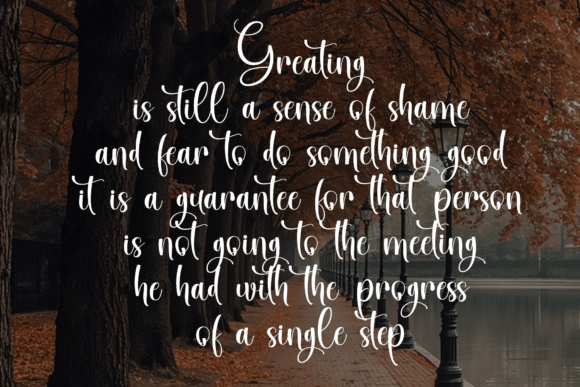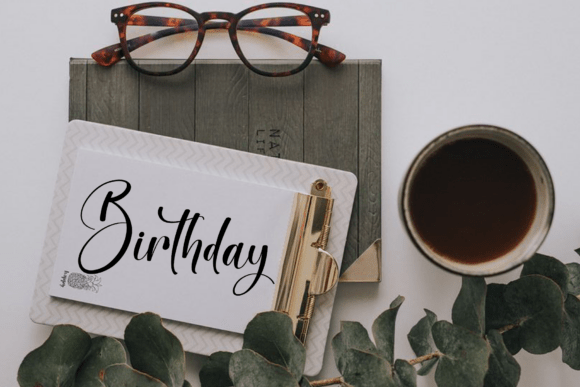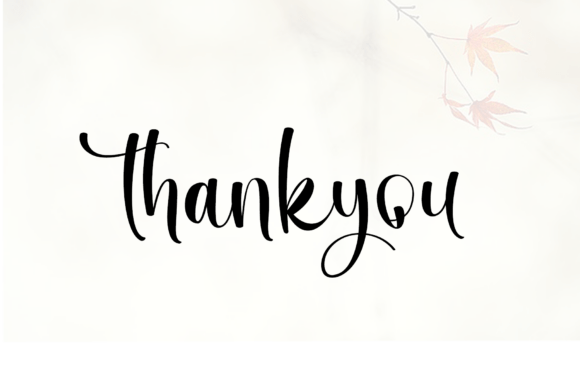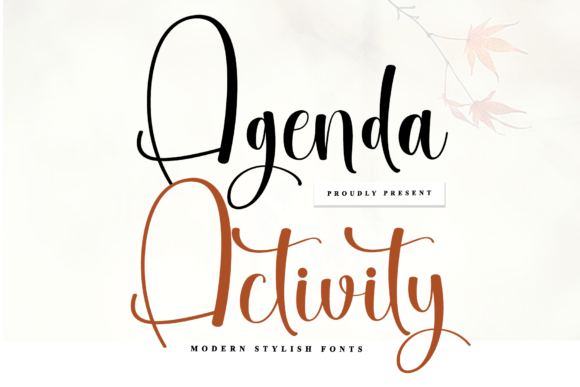
Introducing Agenda Activity Font: A Timeless Handwritten Treasure
Are you on the hunt for a font that adds a touch of elegance and personality to your designs? Look no further than Agenda Activity Font, a lovely and timeless handwritten font that is sure to capture your audience’s attention. In this article, we’ll dive into the world of Agenda Activity Font, exploring its unique features, uses, and benefits for designers and crafters.
A Unique and Beautiful Touch
Agenda Activity Font boasts a distinctive and beautiful touch, setting it apart from other fonts in its category. Every letter has been carefully crafted to exude a sense of sophistication and charm, making it perfect for creating eye-catching logos, branding, and quotes. The font’s unique character ensures that your designs will stand out from the crowd, leaving a lasting impression on your audience.
Agenda Activity Font is an excellent choice for designers and crafters looking to add a personal touch to their work. Whether you’re creating logos, branding materials, or social media graphics, this font is sure to elevate your designs to the next level. Its versatility and legibility make it suitable for a wide range of applications, from digital projects to print materials.
Key Features of Agenda Activity Font
- Timeless design: Agenda Activity Font features a classic, handwritten design that never goes out of style.
- Unique character: Each letter has a distinctive and beautiful touch, ensuring your designs stand out.
- Legible and versatile: The font is easy to read and suitable for various applications, from digital to print.
- Elegant and sophisticated: Agenda Activity Font adds a touch of elegance and refinement to any design.
Uses of Agenda Activity Font
Agenda Activity Font is an incredibly versatile font that can be used in a variety of contexts, including:
- Logo design: Create memorable and eye-catching logos that showcase your brand’s personality.
- Branding materials: Use Agenda Activity Font to create consistent and recognizable branding across all your marketing materials.
- Quotes and posters: Add a touch of elegance and sophistication to your quotes and posters.
- Social media graphics: Elevate your social media graphics with a font that stands out from the crowd.
Tips for Using Agenda Activity Font
To get the most out of Agenda Activity Font, consider the following tips:
- Pair with complementary fonts: Combine Agenda Activity Font with other fonts to create a unique and visually appealing design.
- Experiment with colors: Try out different color schemes to find the perfect match for your design.
- Use it sparingly: Agenda Activity Font is a statement font, so use it sparingly to avoid overwhelming your design.
Agenda Activity Font is a timeless handwritten treasure that is sure to elevate your designs to new heights. Its unique character, legibility, and versatility make it an excellent choice for designers and crafters looking to add a touch of elegance and sophistication to their work. With its wide range of applications and uses, Agenda Activity Font is a valuable addition to any designer’s toolkit.